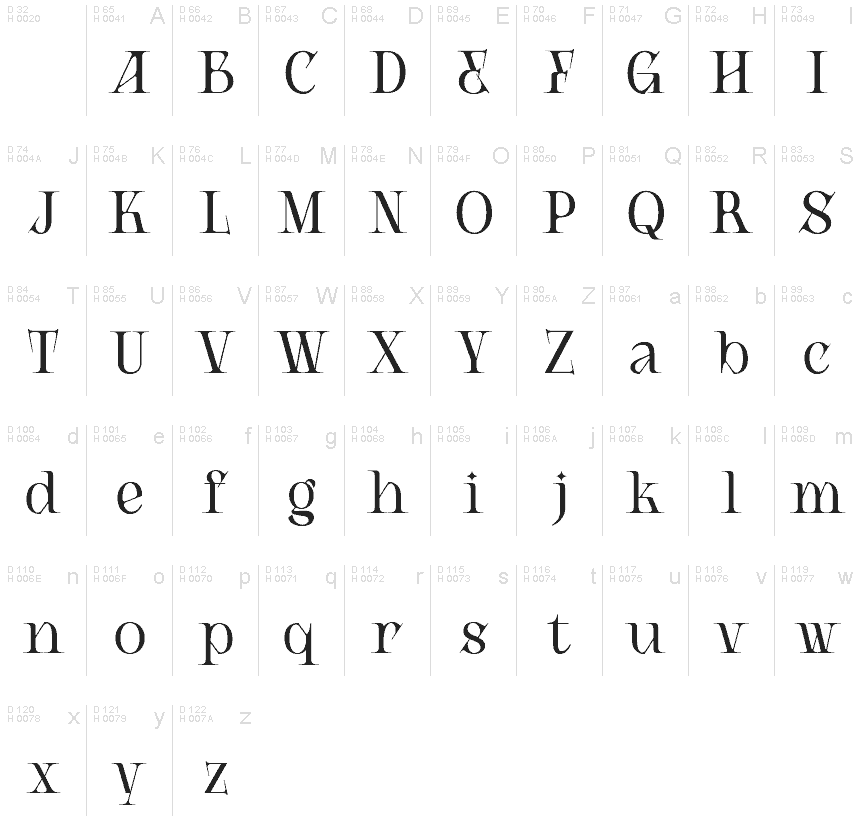
CS Alden Demo Regular
CS Alden font is an elegant serif typeface created by Craft Supply Co. with classic influences that lend to its sophisticated appeal. This high-contrast font features a formal appearance, offering an ideal output for official and serious projects that seek to deliver significant messages in a proper setting.
This free serif font can be used for magazine titles and cover designs, movie posters or book covers, advertisements including flyers and brochures, headlines or news reports, branding presentations and packaging projects etc.